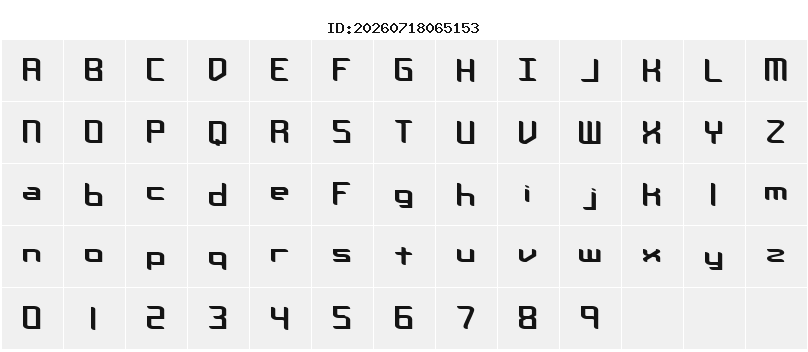
Chemical Reaction B (BRK) Preview
• Font Name: Chemical Reaction B (BRK)
• Full Font Name: Chemical Reaction B -BRK-
• PostScript Name: ChemicalReactionB-BRK-
About Chemical Reaction B (BRK).ttf
Chemical Reaction B (BRK).ttf is a modern, elegant sans-serif font designed for ultimate readability and visual harmony. Perfect for branding, headlines, web design, and print materials.